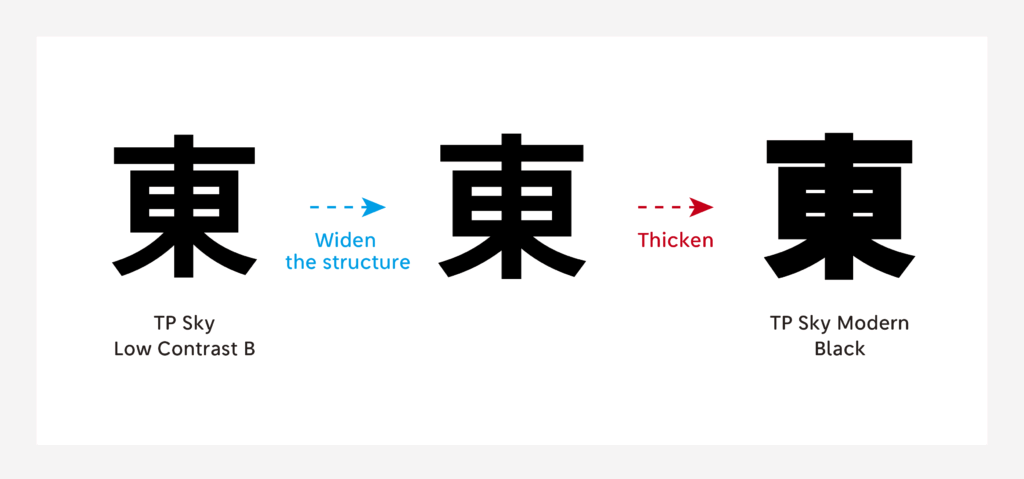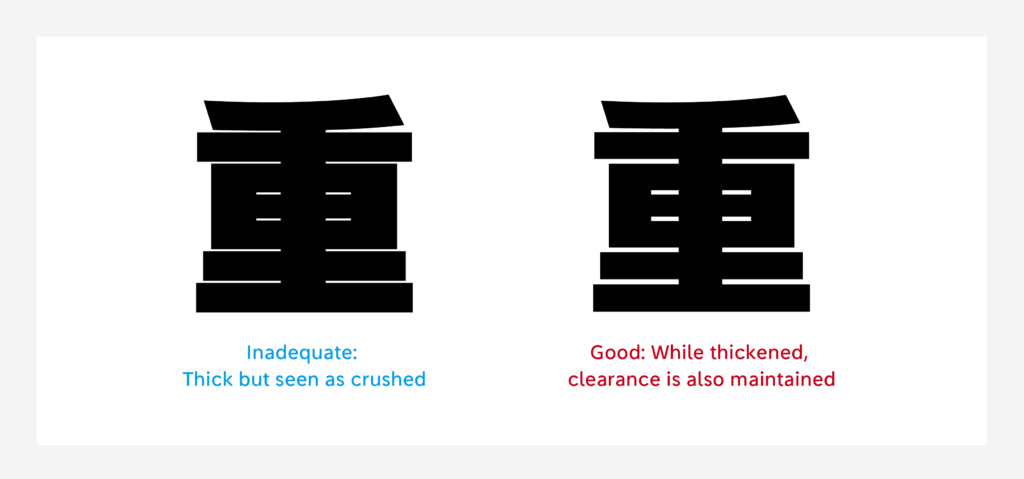
TP Sky Modern Development Story 01: “Unable to Satisfy Both Sides”
For TP Sky Modern, I first participated in creating the extremely thick weight “Black” and then, created “UL.” I find the difference in the height of the weight to be the most intense transition.
At the time of my participation in making Black, the creation of kanji had already proceeded to a considerable degree, and the overall design rules were already prepared. I approached the creation as coming to understand the atmosphere of TP Sky Modern and fighting the limitations peculiar to Black.
As mentioned in the above article, the creation of Black involved thickening strokes by widening the structure of TP Sky Low Contrast B. From the character used as a base, a firm difference is necessary to obtain features specific to Modern.
First, widen the structure to obtain quality specific to Modern. From here, thicken as much as possible.
Just thickening strokes, however, or widening the structure too much to fill the clearance between each stroke must be prevented. The numerical values for the clearance between each stroke and the thickness of stroke are set to some extent.
Furthermore, the difference between the thickness and thinness of each stroke is adjusted to as modest a degree as possible. Then, whether or not the character matches the design policy as a TP Sky family is observed. Whether or not the overall black color is aligned at the time of typesetting is checked in advance.
When the clearance between each stroke is maintained, there is a limit to the method of widening the structure; when correspondence is made by thickening the character, its thickness becomes uneven with the other characters – when newly participating in the creation process, I often fell in the situation of being unable to “satisfy both sides.”
In creating many kanji characters, I began understanding how to arrange characters in accordance with the thickness of other characters. The senior designers taught me how to thicken the line effectively by telling me: “when this part is prioritized in thickening, the overall character can be seen as firmly thick,” and I was able to smoothly transition myself into dedicated creation.